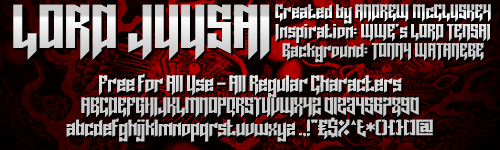
Japanese-style bold font. Inspired by the logo for Lord Tensai from WWE, though not a direct copy of any of its letters. Free for all use. Notification on use, commercial or otherwise, is not required, but I genuinely love it when you do - so please consider quickly dropping a line! I don't bite, and I won't refuse you permission to use the font regardless of how it's being used. Credit is much of the same - not required, but it makes me smile when people do :) You're also welcome to donate if you like/use the font (PayPal: nal[at]nalgames[dot]com, or just use DaFont's built in Donate link), but again, optional! |